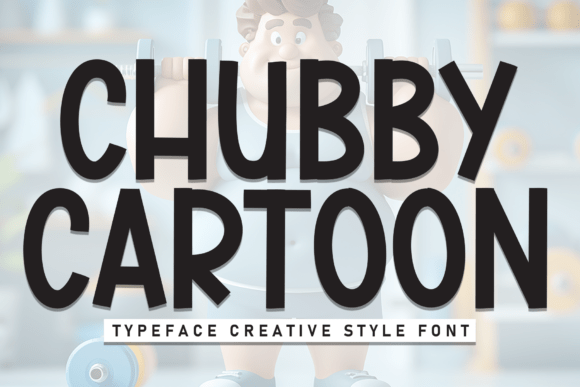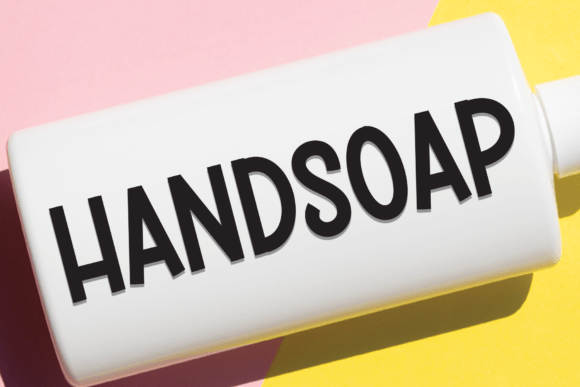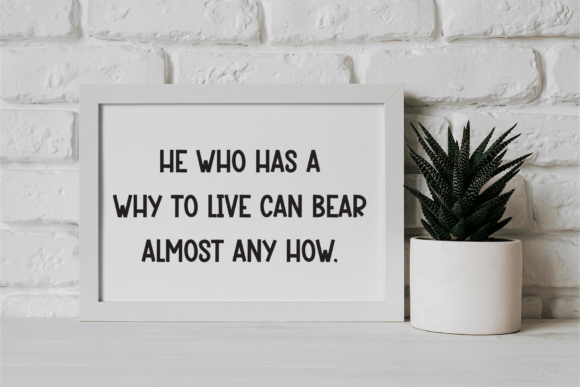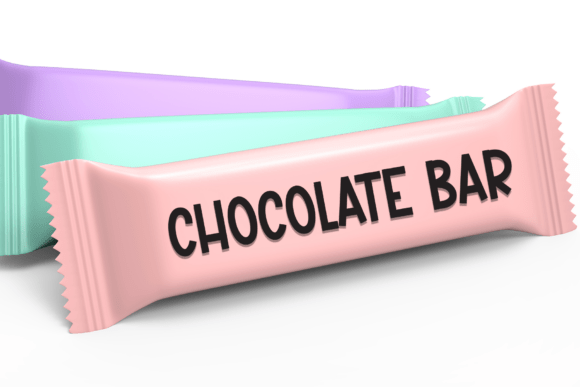
Chubby Cartoon Font
About the Chubby Cartoon Font
Add a touch of class to your work with the Chubby Cartoon Font, a truly exceptional typeface. This bold display handwritten font brings a perfect fusion of personality and power. With thick strokes and a hand-drawn touch, it’s designed to make a statement in everything from posters and branding to social media graphics. Its organic, expressive style adds a sense of authenticity and creativity, while the bold weight ensures your message stands out loud and clear.
Chubby Cartoon Font Usage Examples
Chubby Cartoon Font Example